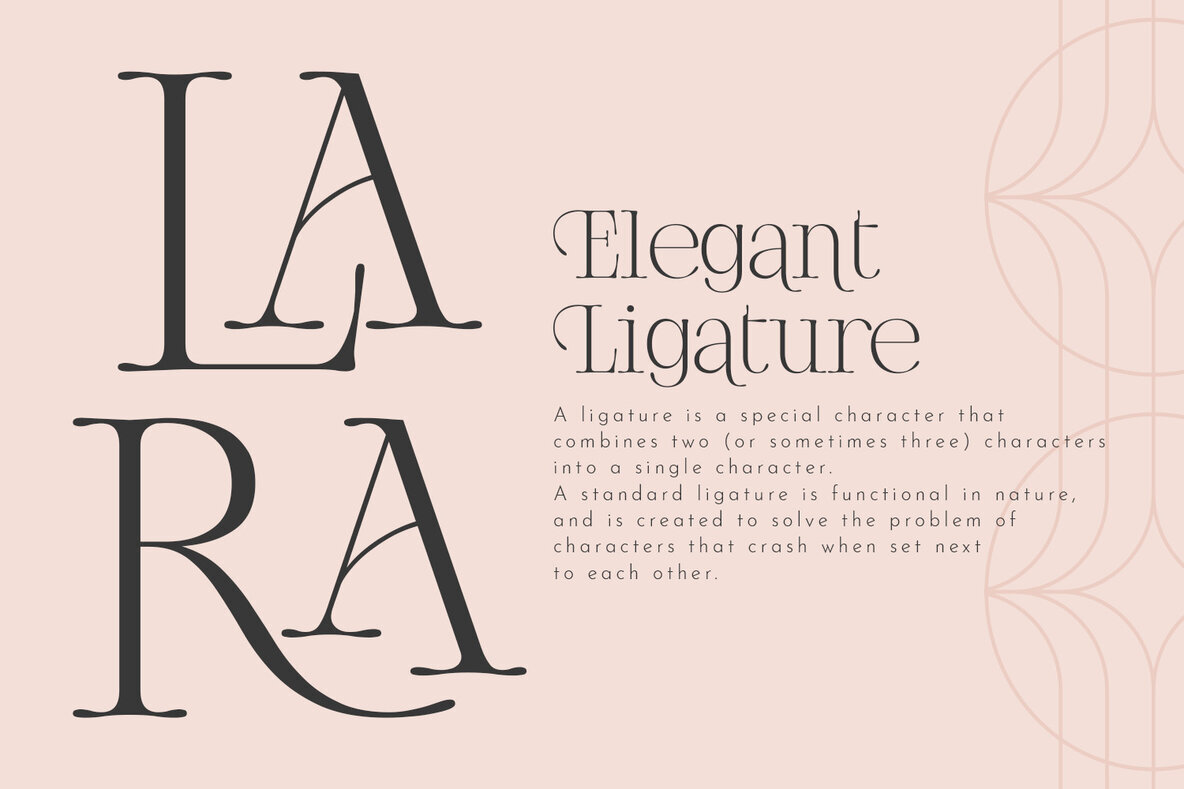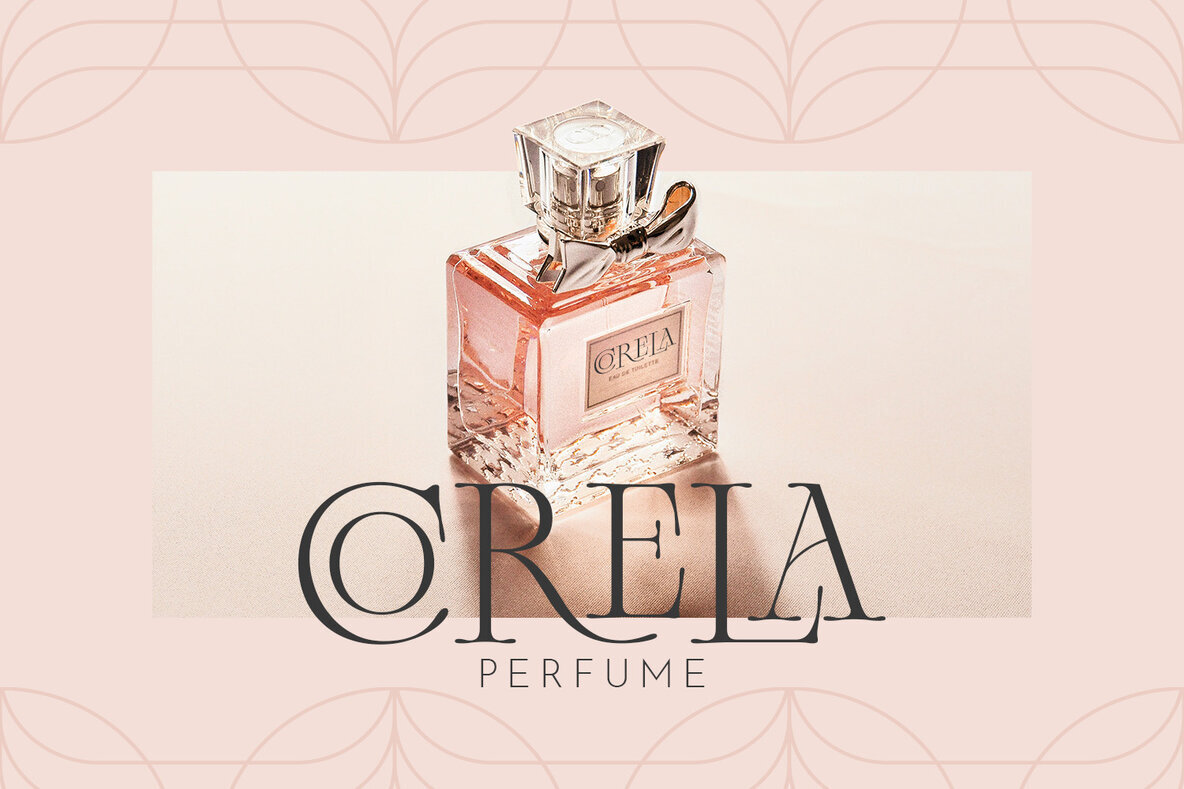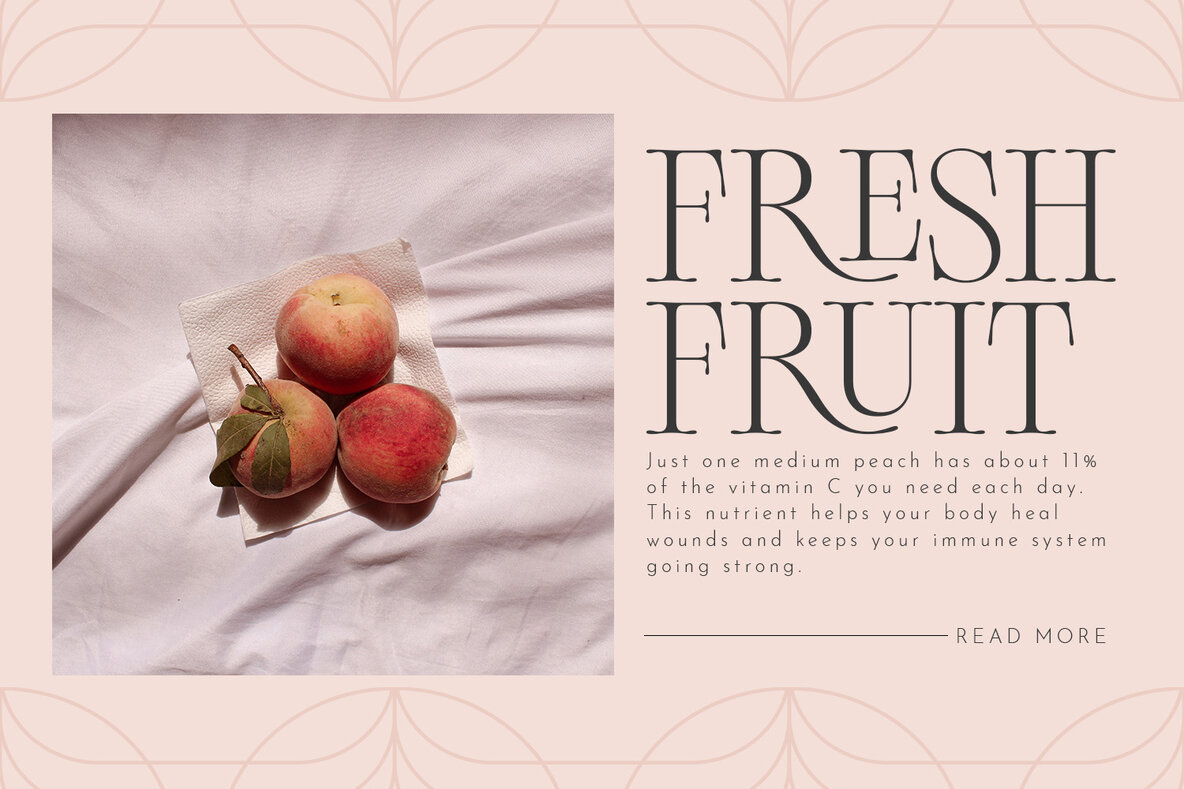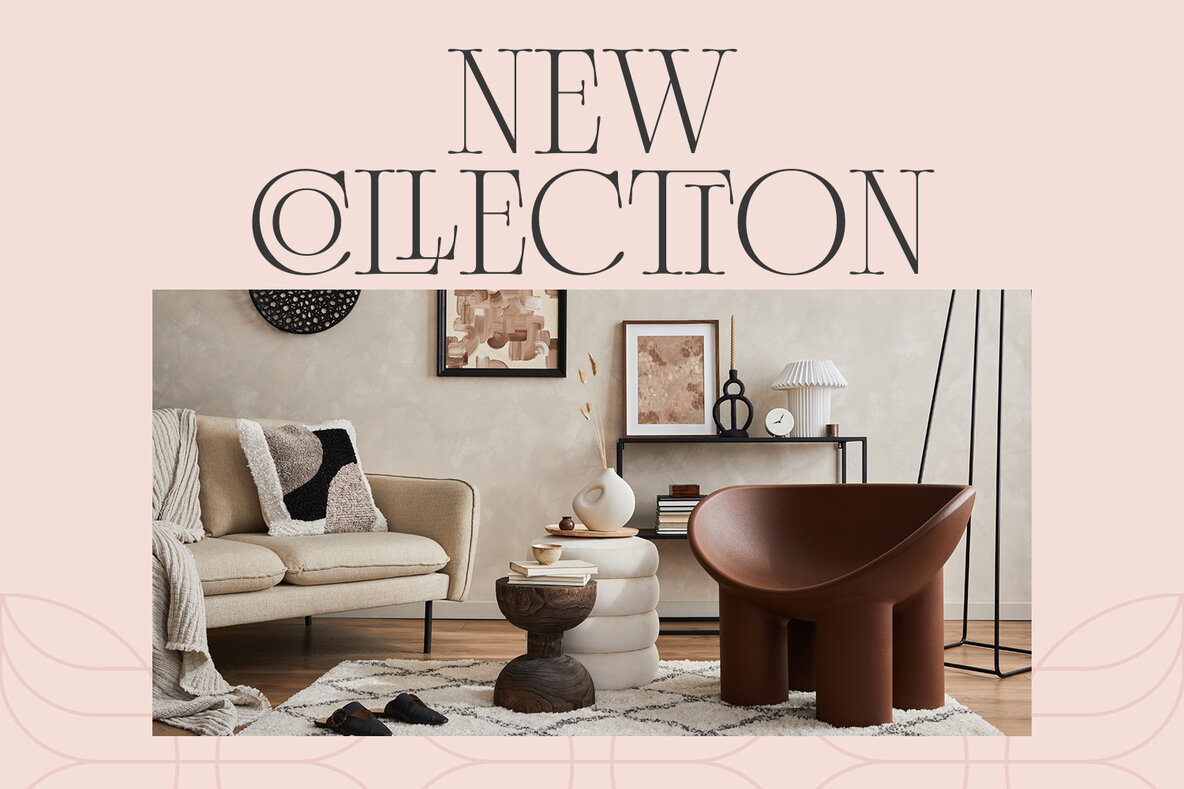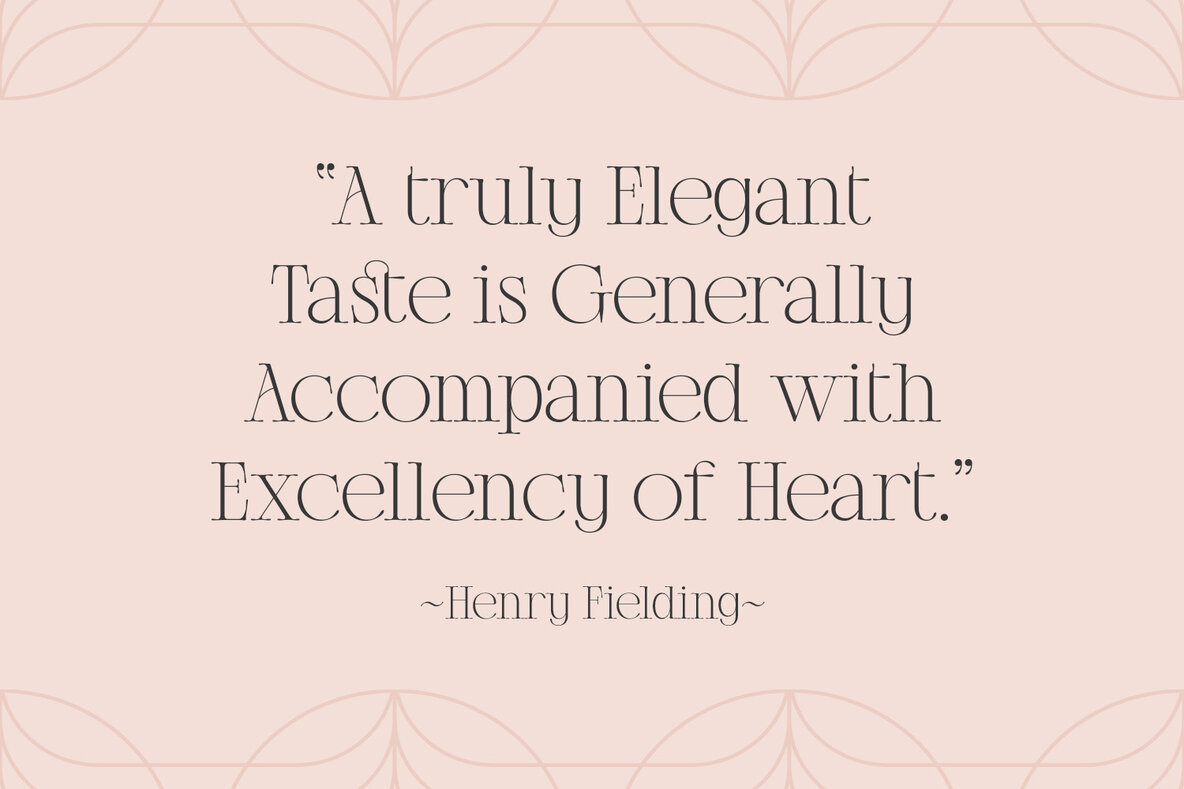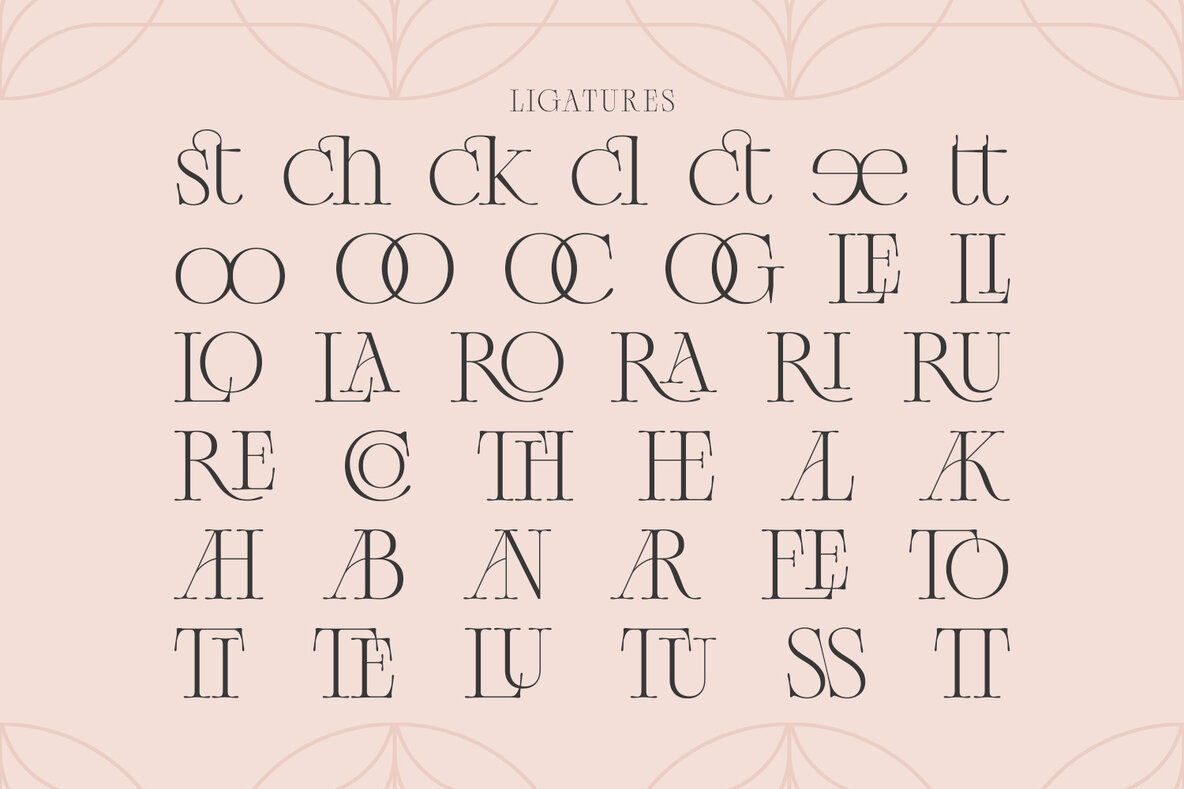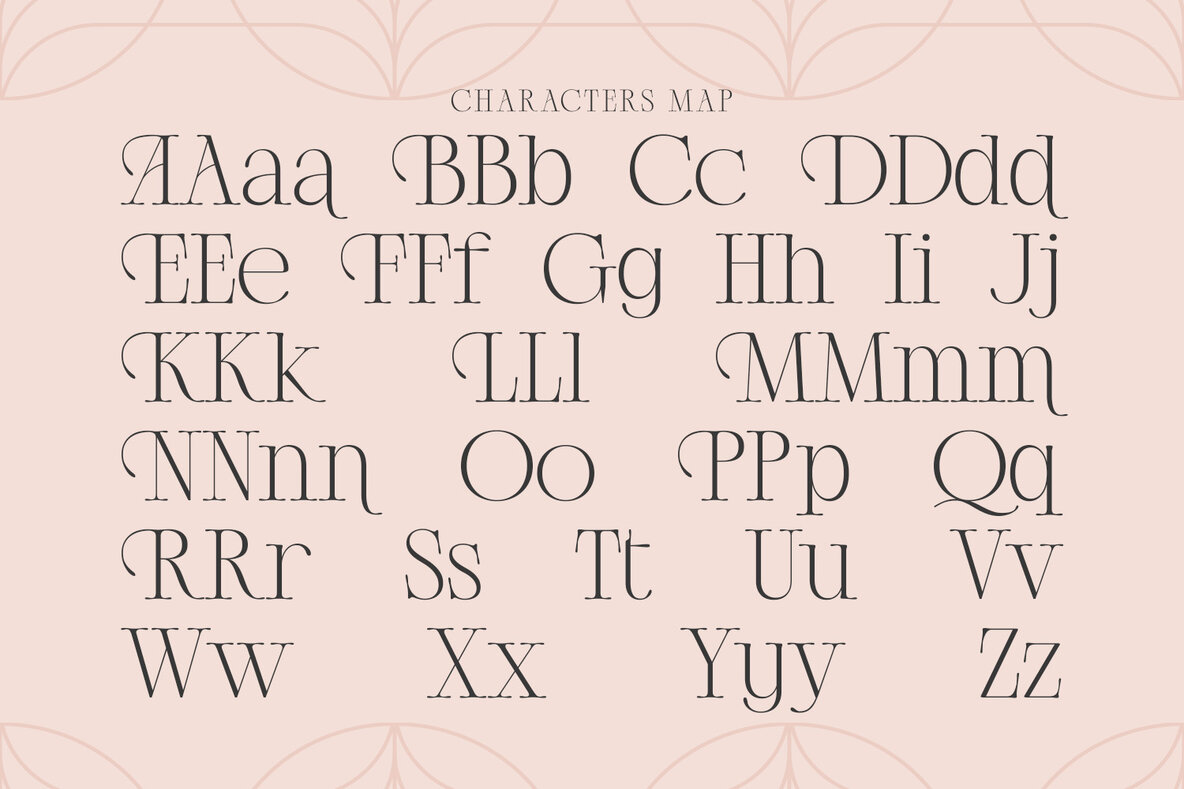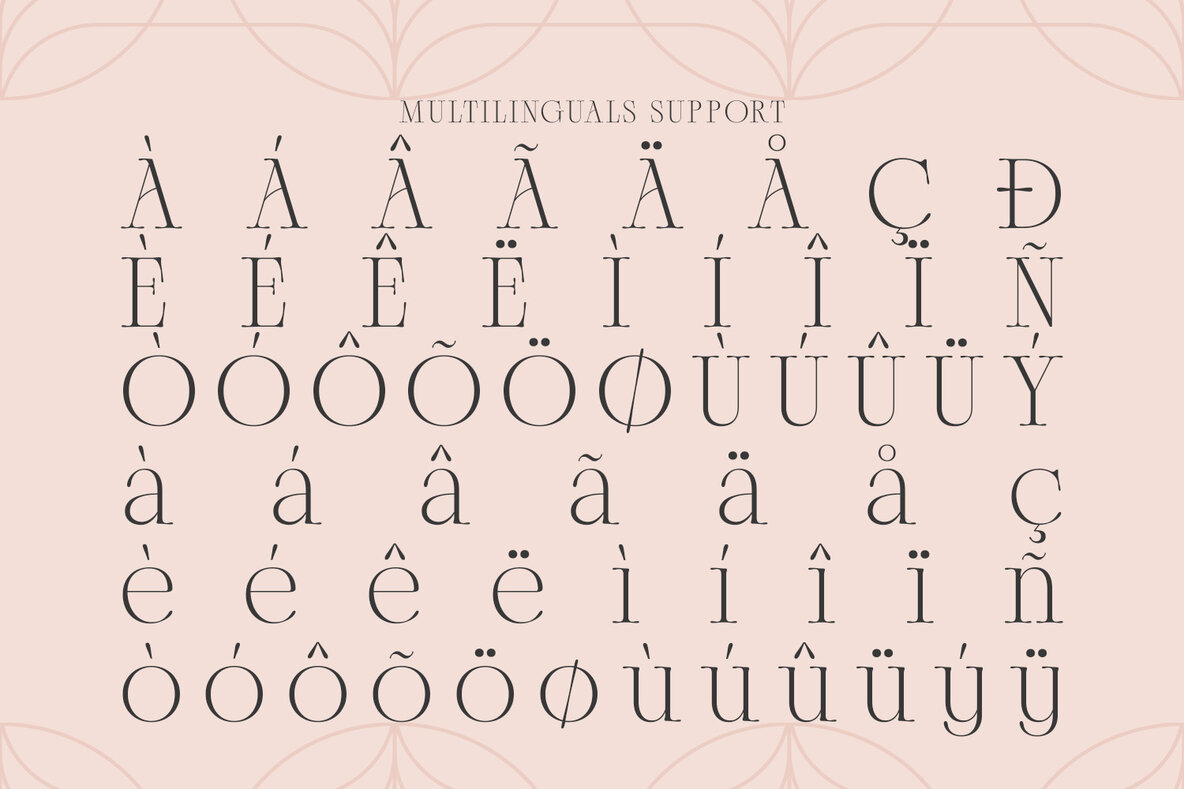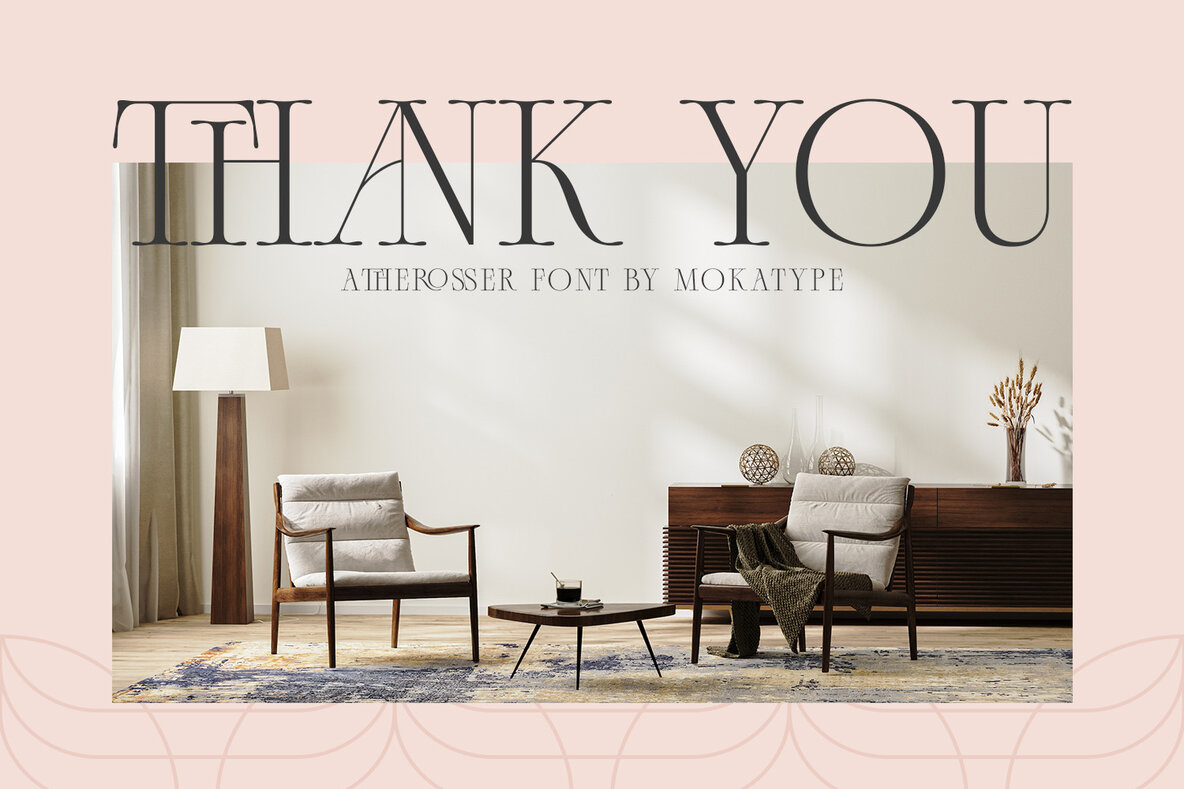
Atherosser Font
ATHEROSSER REGULAR
Atherosser offers a sophisticated blend of classic serif elegance and contemporary flair. Inspired by traditional Roman typefaces, this font incorporates a modern feel while retaining vintage charm, characterized by rounded serif tips and a wealth of alternates and ligatures. Its versatility makes it ideal for a wide range of design projects, from headlines and posters to magazines and websites, infusing each with a touch of luxury. Despite its elegant appearance, Atherosser is well-suited for extended text, enhancing readability and style in equal measure.Atherosser: Classic Elegance Meets Modern Design